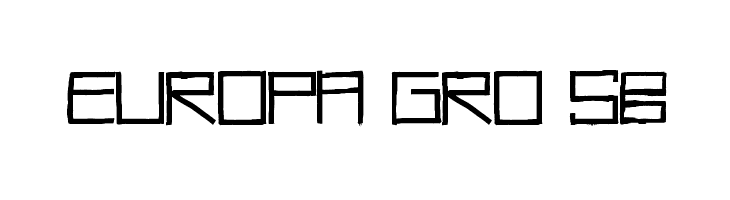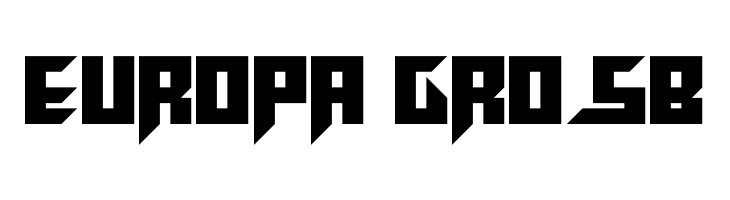
A bold, cursive font with a dynamic slant and fluid connections.
A bold, cursive font with a flowing, handwritten style.
A bold, expressive script font with fluid, interconnected strokes.
( Fonts by Mike Wolf )
A playful, futuristic font with bold, rounded shapes and whimsical accents.
A whimsical pictogram font featuring diverse rat and mouse illustrations.
A playful decorative font made from illustrated rat and mouse silhouettes.
( Nihilschiz - nihilschiz.sheezyart.com )
A bold and intricate Blackletter font with dramatic serifs and ornate details.
( Sudar Moko )
A bold, high-contrast font with a modern and impactful style.
A haunting, branch-like font with jagged, eerie strokes.
( Ren Paga - rapcomcreations.blogspot.com/ )
A futuristic, angular font with a geometric and sci-fi inspired design.
A bold, hand-drawn font with textured, playful characters.
( Out Of Step Font Company - outofstepfontco.com )
A narrow, edgy font with elongated characters and sharp angles.
( www.imagex-fonts.com )
A raw, hand-drawn font with playful and artistic characteristics.
A hand-drawn, textured font with a raw, organic appearance.
( truefonts.blogspot.com )
A bold, striped font with a modern and dynamic style.
( Fonts by Rodrigo German - RASDESIGN )
A textured, hand-drawn font with a chalk-like appearance.
( Joe Chau - fontever.com )
A bold, modern sans-serif font with clean lines and strong legibility.
( zodiakcorporation.wordpress.com/ )
A bold, playful font with dynamic curves and a whimsical, hand-drawn style.
( Michael Segade - zodiakcorporation.wordpress.com/ )
A playful, bold font with irregular strokes and a hand-drawn appearance.
A futuristic, geometric font with rounded edges and consistent stroke width.
A futuristic, geometric font with rounded edges and a sleek, modern appearance.
( Fonts by Koczman Balint - magiquefonts.gportal.hu )
A hand-drawn, artistic font with elongated, irregular letterforms.
( Here Be Monsters - monsterswithin.com )
A bold, geometric font with dynamic cut-out patterns and a modern aesthetic.
( Here Be Monsters - monsterswithin.com )
A futuristic, geometric font with sharp angles and clean lines.
( Here Be Monsters - monsterswithin.com )
A bold, geometric font with diagonal stripes and a modern, futuristic look.
A sharp, edgy font with jagged strokes and dynamic movement.
A sharp, edgy font with a fragmented, jagged appearance.
A bold, distressed font with a textured, industrial look.
A bold, distressed font with a textured, grunge aesthetic.
A bold, distressed font with a rugged, weathered appearance.
A playful, hand-drawn font with tall, narrow letters and a whimsical style.